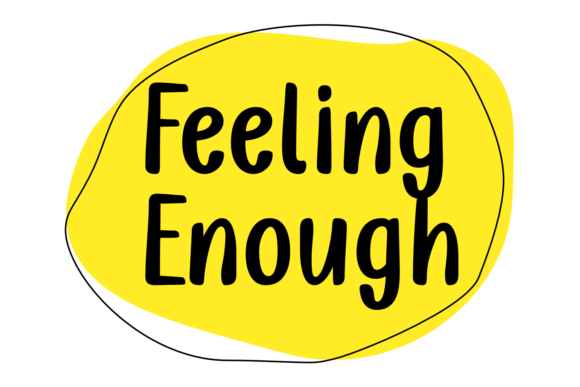
Introducing Feeling Enough Font - The Epitome of Elegance and Warmth for Your Digital Creations
In the realm of digital design, fonts hold the power to transform ordinary words into captivating expressions of art. They breathe life into your creations, evoking emotions and setting the tone for your message. Among the multitude of fonts that grace the digital landscape, Feeling Enough Font stands out as a masterpiece of modern elegance and timeless charm.
Step into a world where sophistication meets warmth, where each letter dances across the screen with grace and fluidity. Feeling Enough Font is a script font that exudes a sense of intimacy and personal connection. Its graceful strokes flow effortlessly, creating an enchanting visual experience that captivates the beholder.
With Feeling Enough Font, your designs will radiate an air of sophistication and refinement. Whether you're crafting wedding invitations, thank you cards, or heartfelt quotes, this font adds a touch of elegance that elevates your message. Its versatility shines through in logos, business cards, and any other design seeking a warm and inviting aesthetic.
Imagine your words taking on a new life, imbued with the charm and allure of Feeling Enough Font. Your wedding invitations will evoke the joy and anticipation of the special day, while your thank you cards will convey your gratitude with a touch of heartfelt warmth. Quotes and greetings will resonate with a deeper emotional connection, as the font's graceful curves embrace the essence of your message.
In the competitive world of digital design, standing out from the crowd is essential. Feeling Enough Font empowers you to create designs that captivate and engage your audience. Your logos will command attention, leaving a lasting impression on potential customers. Your business cards will exude professionalism and creativity, setting you apart from the ordinary.
Embrace Feeling Enough Font and unlock the potential of your digital creations. Let your words dance with grace and elegance, captivating your audience and leaving an enduring impression. Experience the transformative power of a font that speaks to the heart and elevates your designs to new heights of beauty and sophistication.